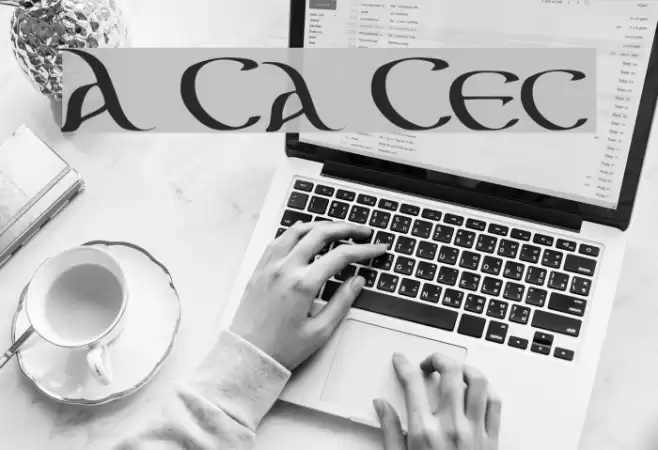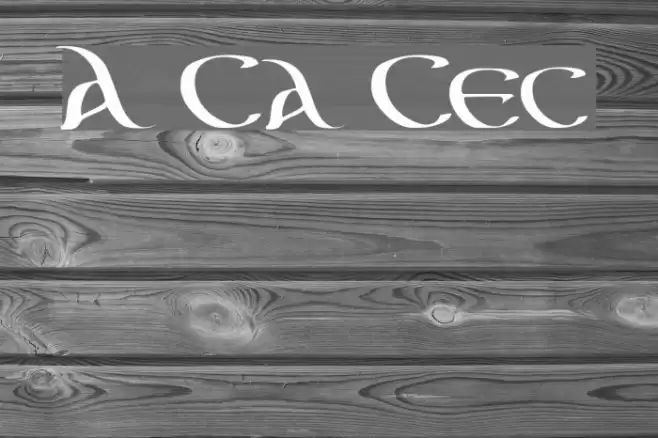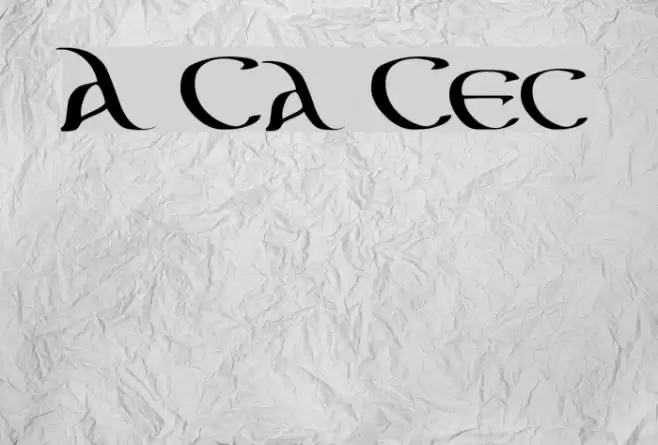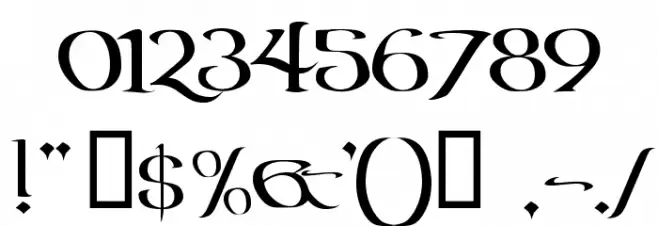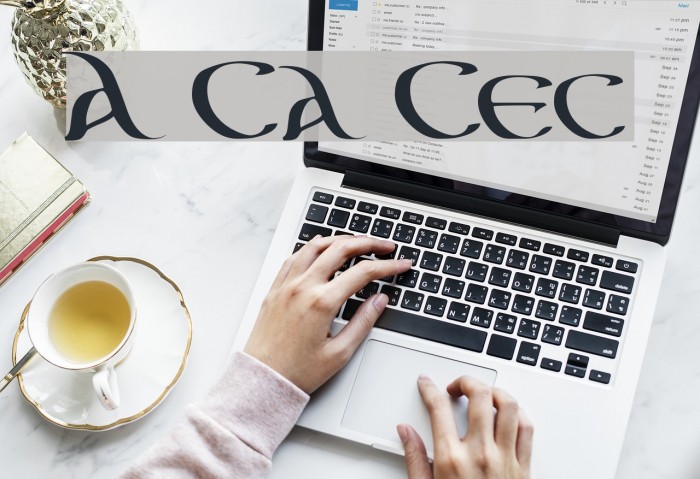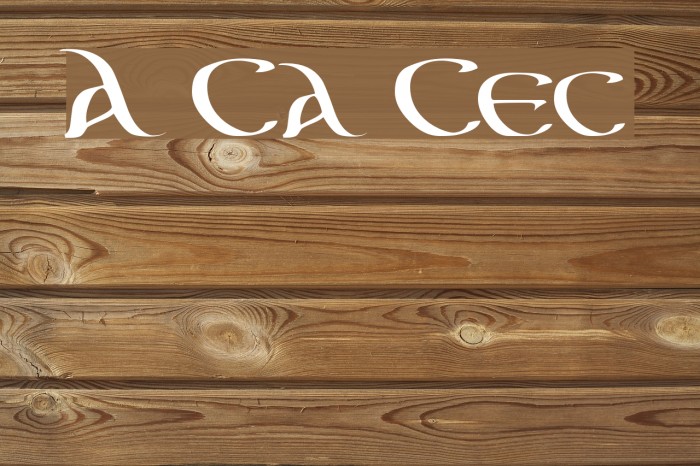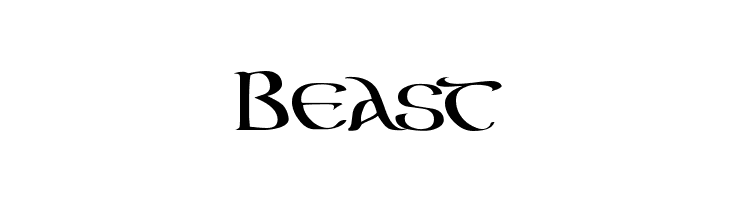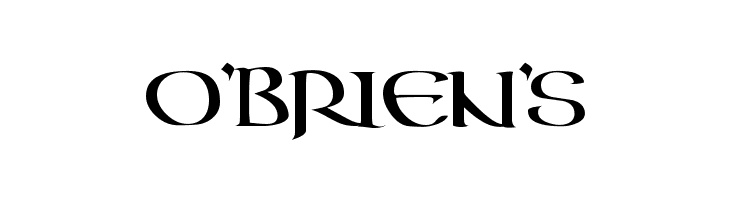
Aon Cari Celtic Font
Aon Cari Celtic Description
This font features a distinct Celtic-inspired design, characterized by its intricate and decorative letterforms. The uppercase and lowercase letters exhibit a unique blend of sharp angles and smooth curves, creating a sense of elegance and tradition. The numerals maintain the same stylistic elements, ensuring consistency throughout the typeface. Special characters are thoughtfully designed to complement the overall aesthetic, making it suitable for projects that require a touch of historical or cultural flair. The font's artistic style is reminiscent of ancient manuscripts, offering a timeless appeal.
A Celtic-inspired decorative font with intricate and elegant letterforms from Gothic fonts.
- Proposed Projects: Ideal for use in cultural event posters, historical book covers, themed invitations, and branding for Celtic-inspired products.
- Overall Style: Vintage